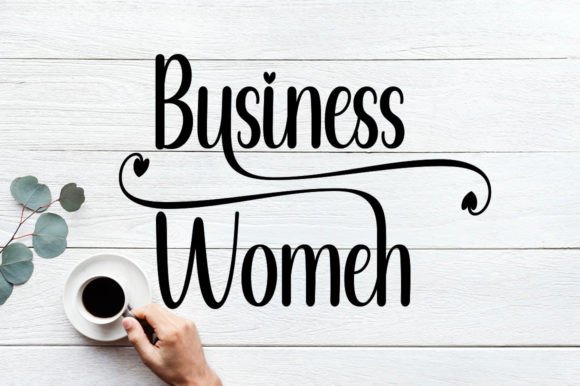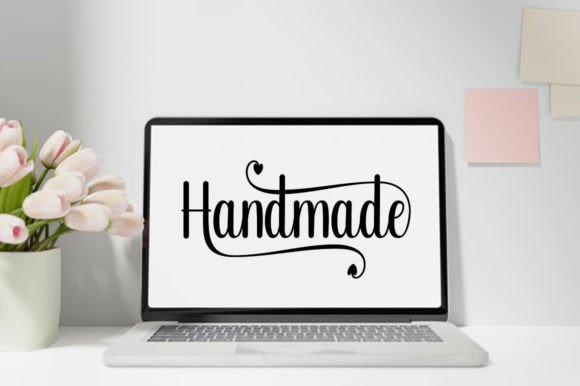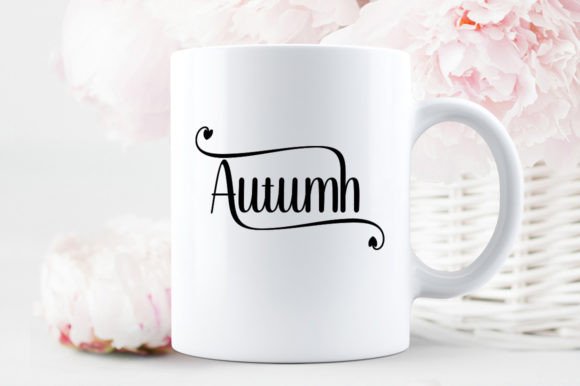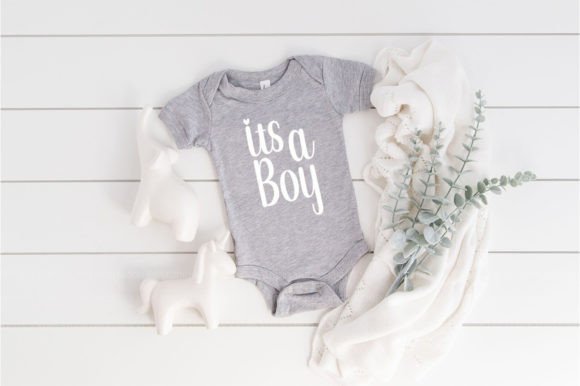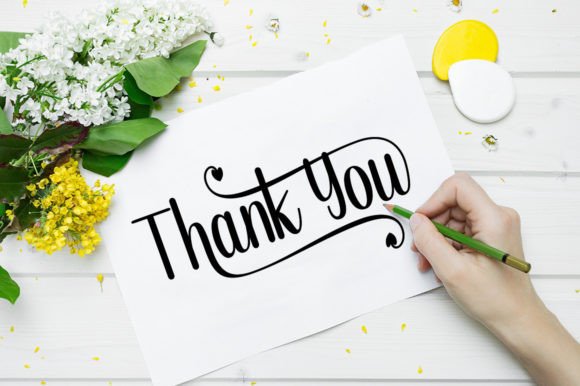
Discover the Charm of Argentina Font: A Friendly and Versatile Handwritten Typeface
Are you tired of using the same old fonts for your design projects? Look no further than Argentina Font, a delightful and welcoming handwritten font that’s perfect for a wide range of applications. Whether you’re a designer, crafter, or digital artist, this charming typeface is sure to become your new go-to choice for all your creative endeavors.
What Makes Argentina Font So Special?
Argentina Font is a beautifully crafted handwritten font that’s designed to bring a touch of warmth and personality to your designs. Its unique charm lies in its effortless, flowing script that’s both elegant and approachable. This font is perfect for creating a friendly and inviting atmosphere in your designs, making it ideal for a variety of projects, from digital designs and presentations to greeting cards and crafts.
Key Features of Argentina Font
- Handwritten with love: Argentina Font is carefully crafted to mimic the natural flow of handwritten script, giving it a personal and authentic feel.
- Versatile and flexible: This font is suitable for a wide range of projects, from digital designs and presentations to greeting cards, crafts, and more.
- Elegant and approachable: Argentina Font strikes the perfect balance between elegance and friendliness, making it perfect for designs that require a touch of sophistication and warmth.
- Easy to read: The font’s clear and legible script ensures that your message is conveyed clearly and effectively, making it perfect for body text and headlines.
Use Cases for Argentina Font
Argentina Font is an incredibly versatile typeface that can be used in a variety of contexts. Here are some ideas to get you started:
- Crafts: Use Argentina Font to add a personal touch to your handmade crafts, such as knitted items, jewelry, or ceramics.
- Digital design: Argentina Font is perfect for digital designs, including social media graphics, blog posts, and website headers.
- Presentations: Add a touch of elegance and sophistication to your presentations with Argentina Font.
- Greeting cards: Create beautiful and heartfelt greeting cards with Argentina Font, perfect for special occasions like birthdays, weddings, and holidays.
Tips for Using Argentina Font
To get the most out of Argentina Font, here are some tips to keep in mind:
- Pair with complementary fonts: Argentina Font pairs well with clean and simple fonts, such as sans-serif fonts like Arial or Helvetica.
- Experiment with colors: Argentina Font looks great in a variety of colors, from bold and bright to soft and pastel.
- Use for headlines and body text: Argentina Font is suitable for both headlines and body text, making it a great choice for designs that require a cohesive look.
Argentina Font is a delightful and versatile handwritten font that’s perfect for designers, crafters, and digital artists. Its unique charm, elegance, and friendliness make it an excellent choice for a wide range of projects. Whether you’re looking to add a personal touch to your crafts, create stunning digital designs, or craft beautiful greeting cards, Argentina Font is sure to become your new go-to typeface.